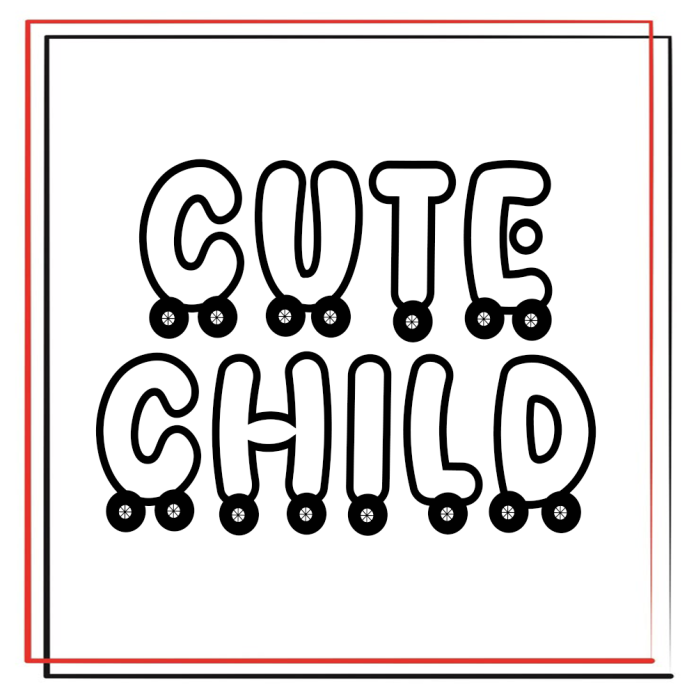
Cute Child Font is a cute and casual handwritten font with an incredibly friendly feel. Whether you’re looking for fonts for Instagram or calligraphy scripts for DIY projects, this font will turn any creative idea into a true piece of art!